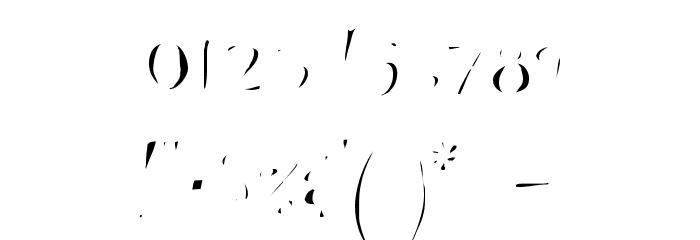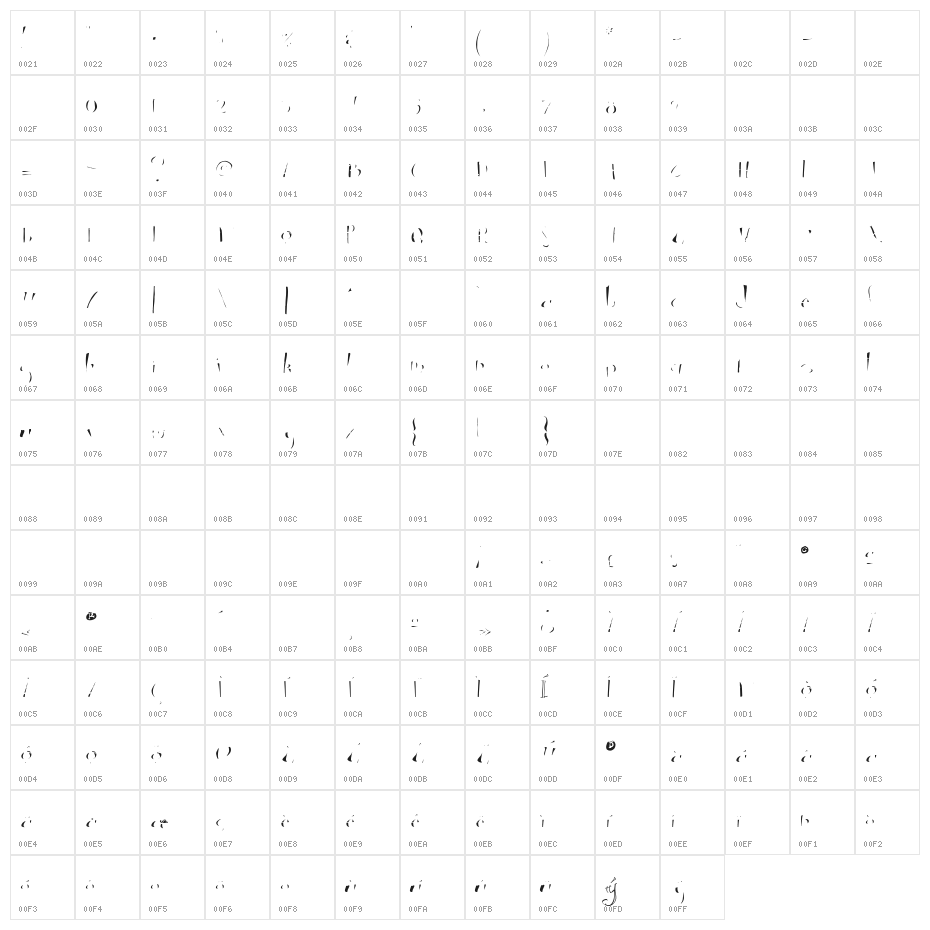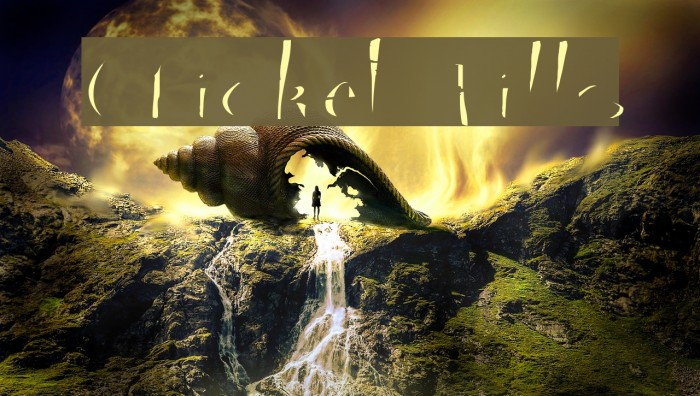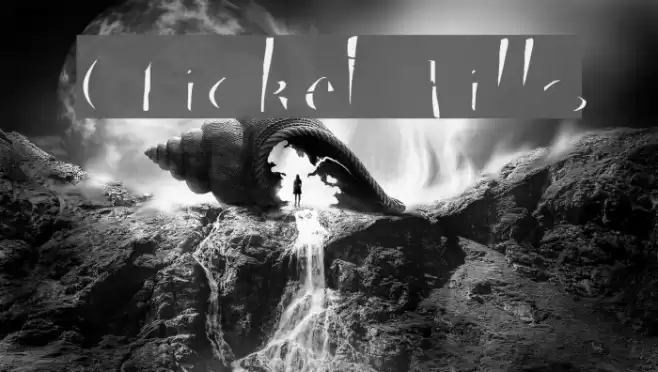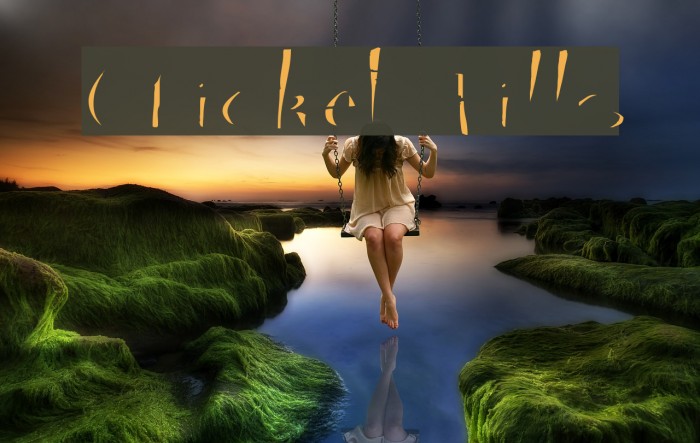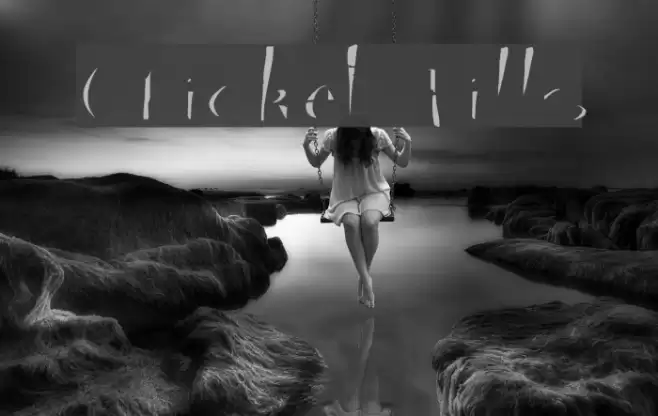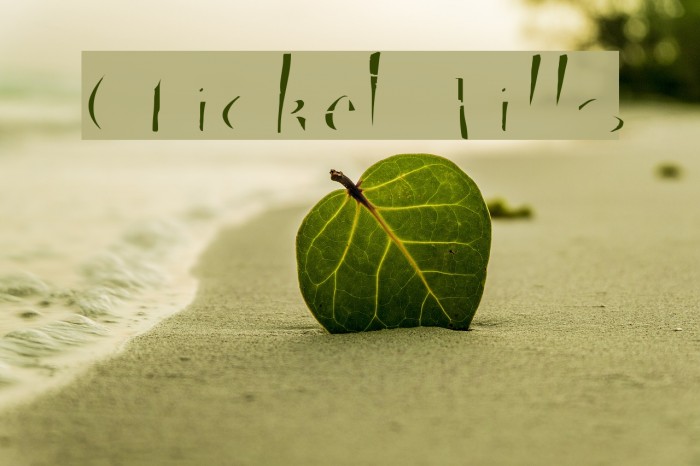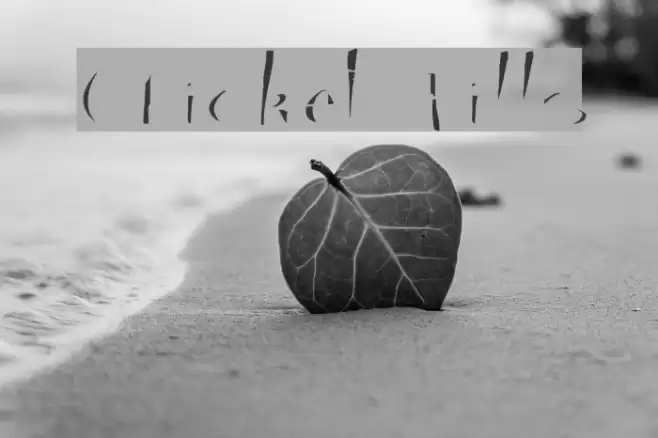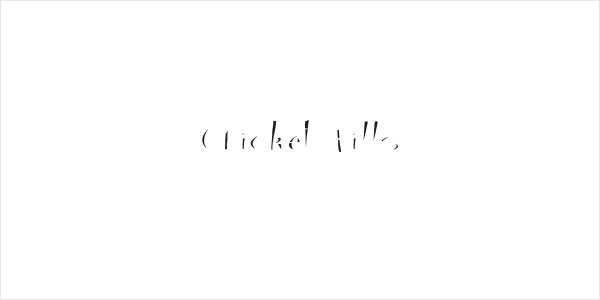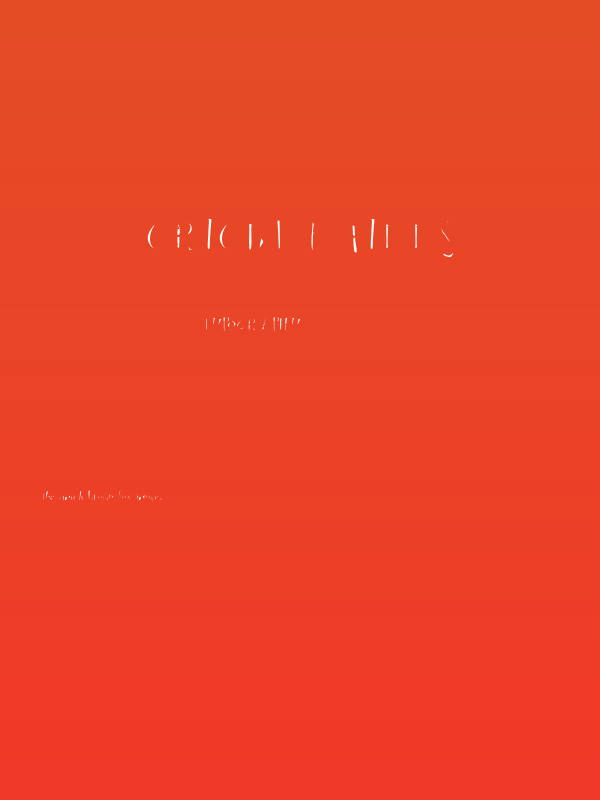
Cricket Fills Font
Cricket Fills Description
This font features a unique, artistic design with a stencil-like appearance. Each character is composed of bold, fragmented strokes that create a sense of movement and dynamism. The uppercase and lowercase letters maintain a consistent style, with sharp angles and distinct separations within each letterform. The numbers and special characters follow the same fragmented style, ensuring a cohesive look across all glyphs. This font's distinctiveness lies in its ability to convey a sense of modernity and creativity, making it suitable for eye-catching designs.
| Proposed Projects | Ideal for modern art projects, creative branding, posters, and innovative packaging designs. |